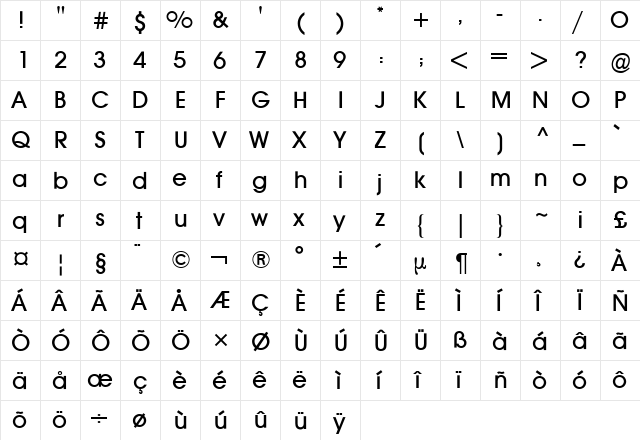
Avant Garde BQ Roman
Design Context for Avant Garde BQ Typeface
Avant Garde BQ offers clean, dependable letterforms without strong stylistic allegiance, making it a practical choice for designers who need flexibility.